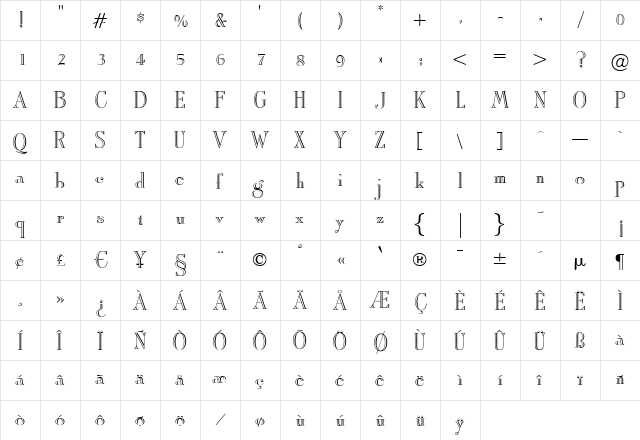
A820-Roman-Openface Regular
Design Context for A820-Roman-Openface Typeface
A820-Roman-Openface is a composed and adaptable typeface that performs quietly and consistently across a wide range of design contexts.